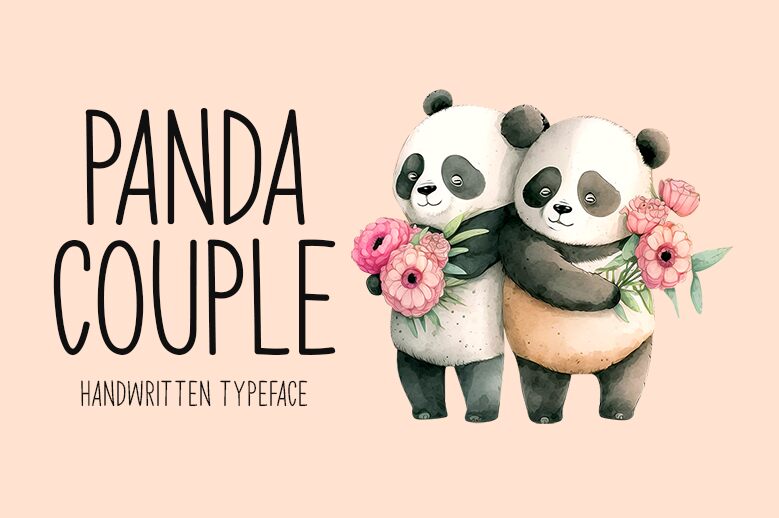
Panda Couple font, crafted by Md Shohail Bhuian of Seemly Fonts, embodies a whimsical handwritten style that radiates charm and personality. Its playful characters dance across the page with elegance, showcasing a light appearance that enhances its inviting nature. The condensed form creates an intimate sense of space while allowing bold expression, making it versatile for various design needs.
This font is perfect for crafting delightful invitations, branding cheerful products, or adding a personal touch to greeting cards. Its unique aesthetic draws attention while maintaining clarity, making it ideal for both digital and print applications. Whether aiming for a casual vibe or an engaging narrative, Panda Couple brings warmth and creativity to any project.